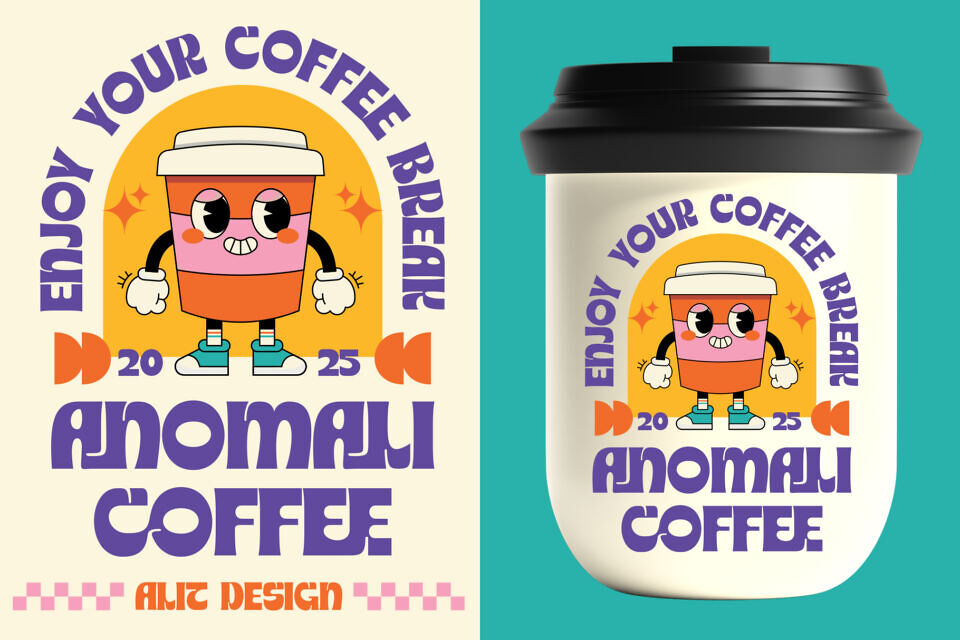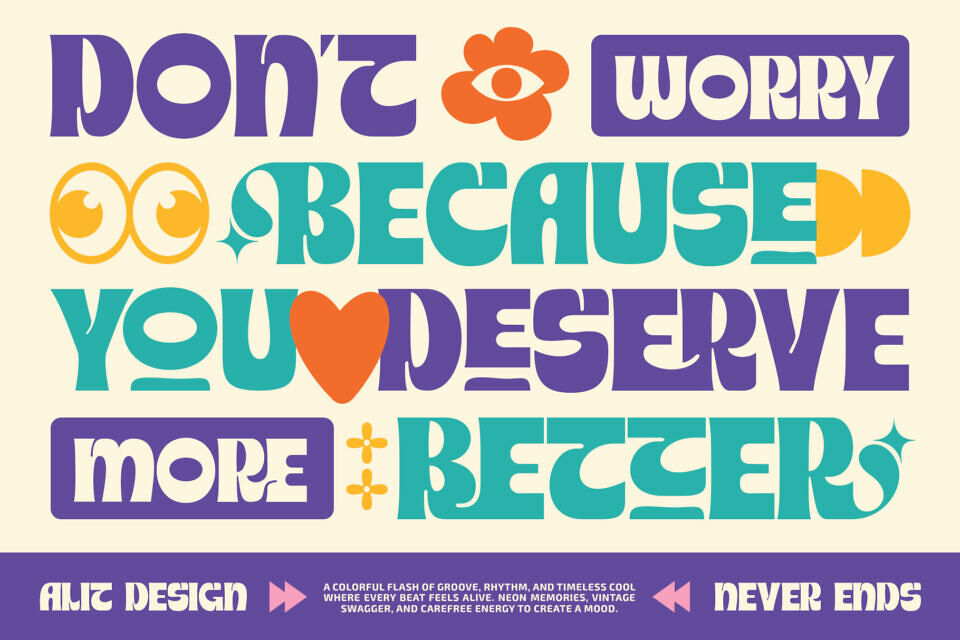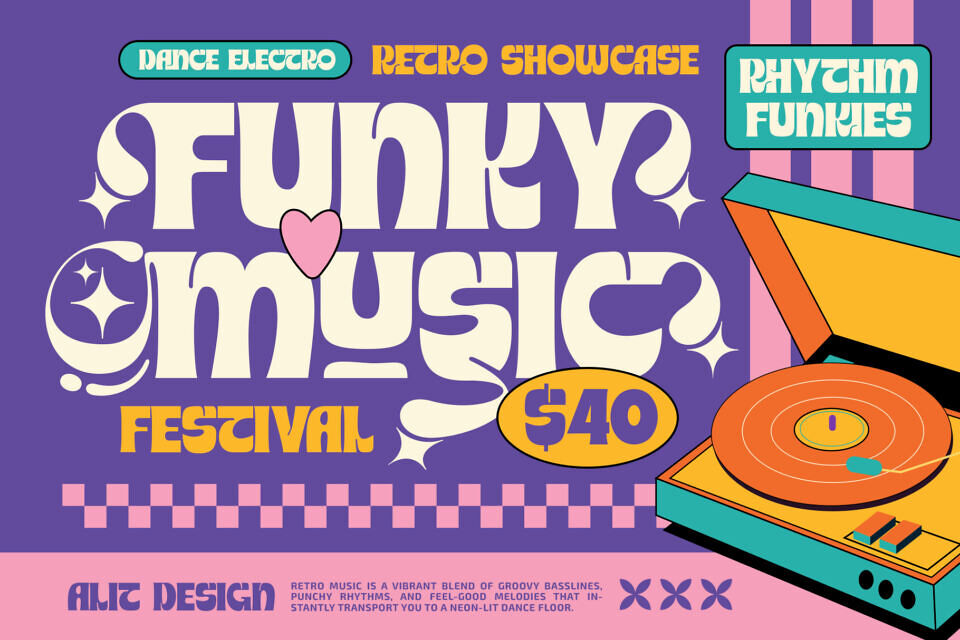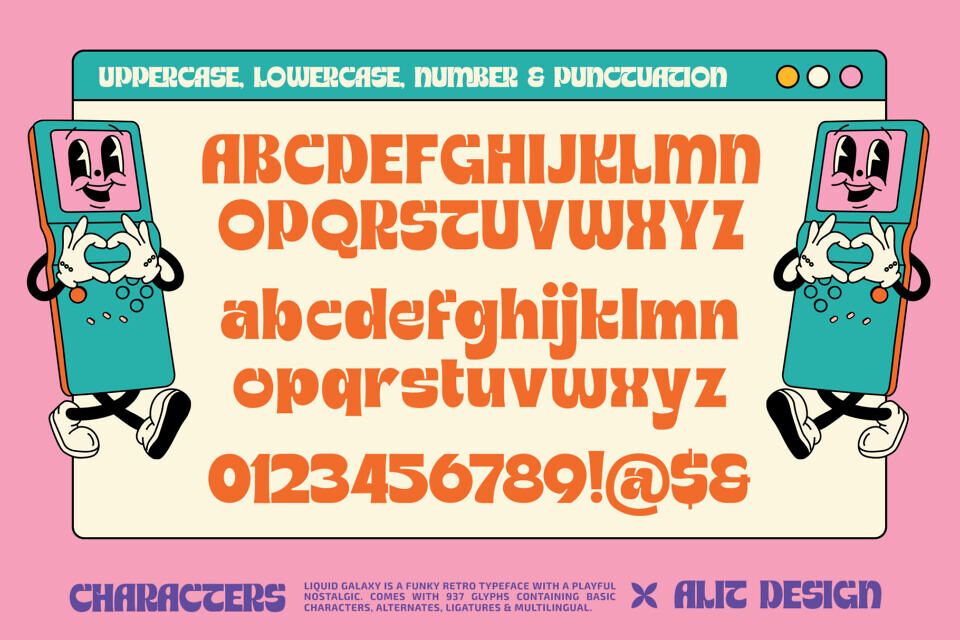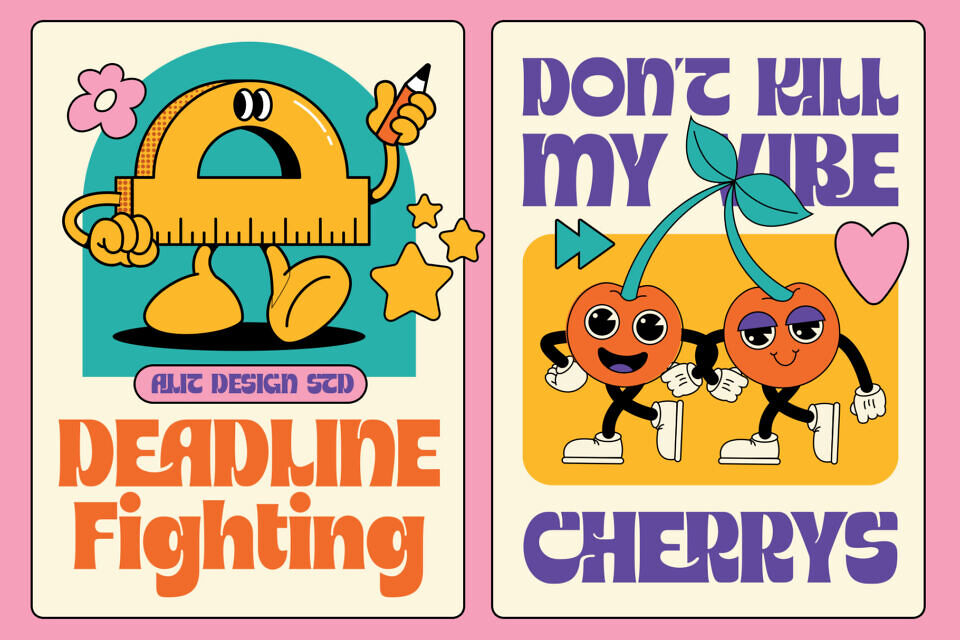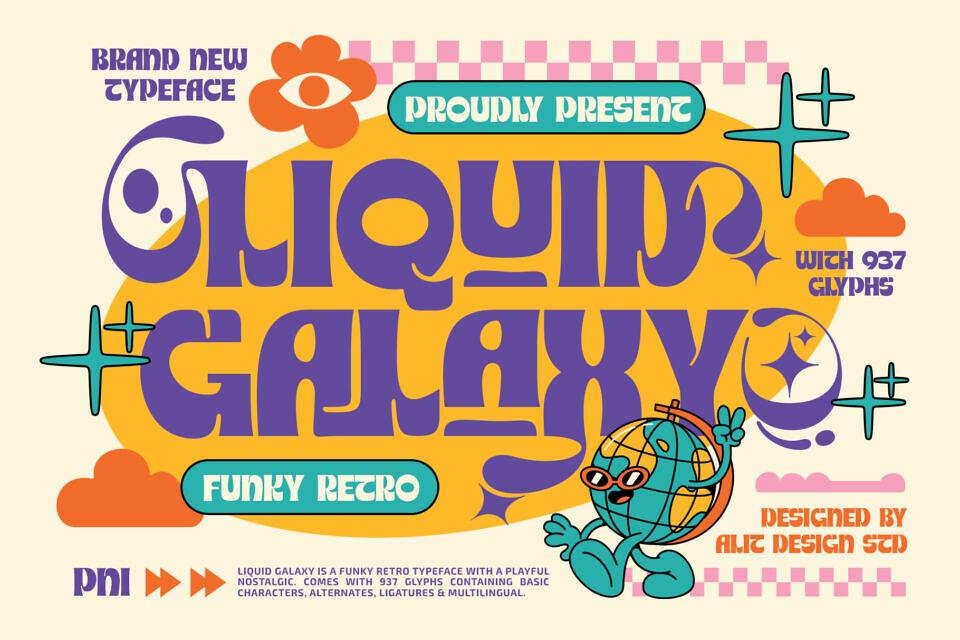
Liquid Galaxy Font
Get back into the rhythm with Liquid Galaxy, a vibrant retro font from Alit Design Studio. Inspired by 70s psychedelic posters and vintage clubbing, it brings a carefree energy to designs.
With bold curves and a playful bounce, Liquid Galaxy adds a retro touch to streetwear, music festival posters, and packaging, creating a unique mood. This ultra-funky typeface is perfect for making designs feel alive with its nostalgic swagger and modern versatility.